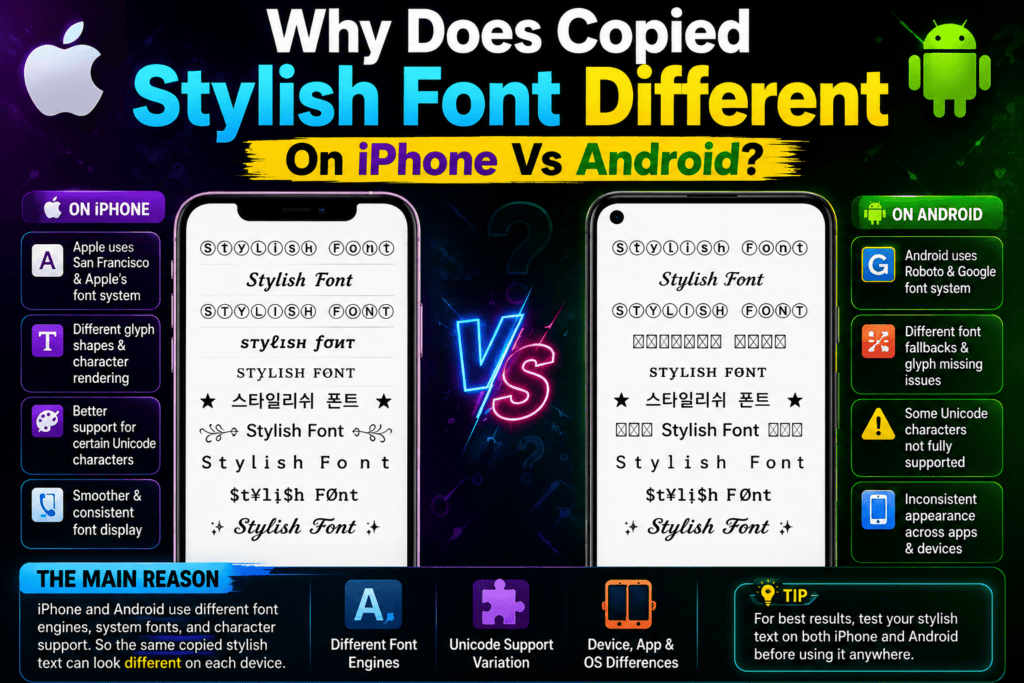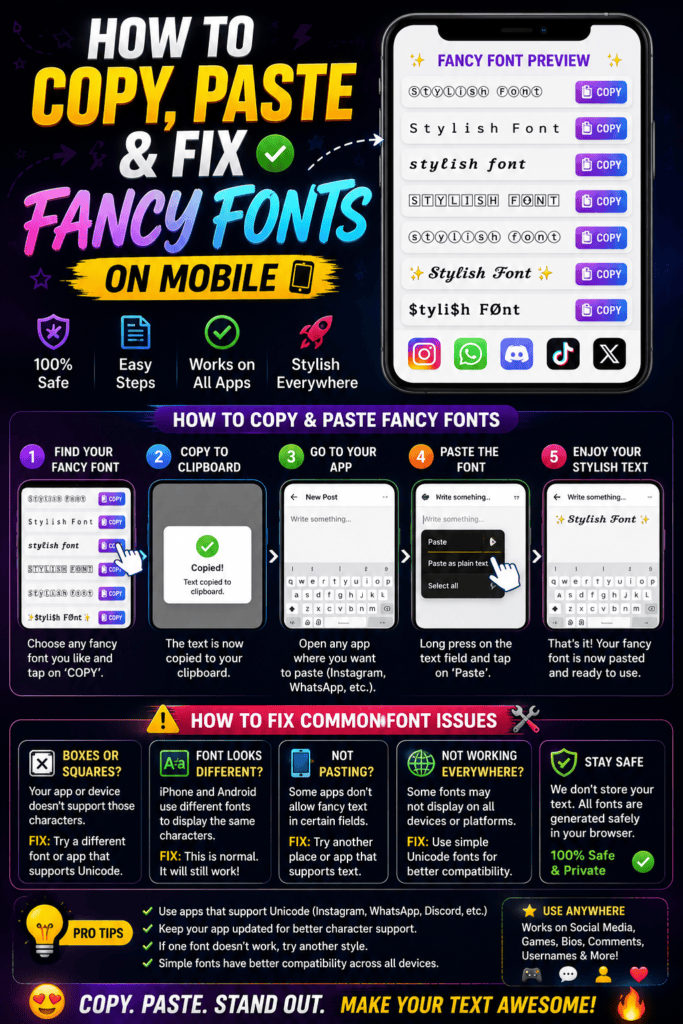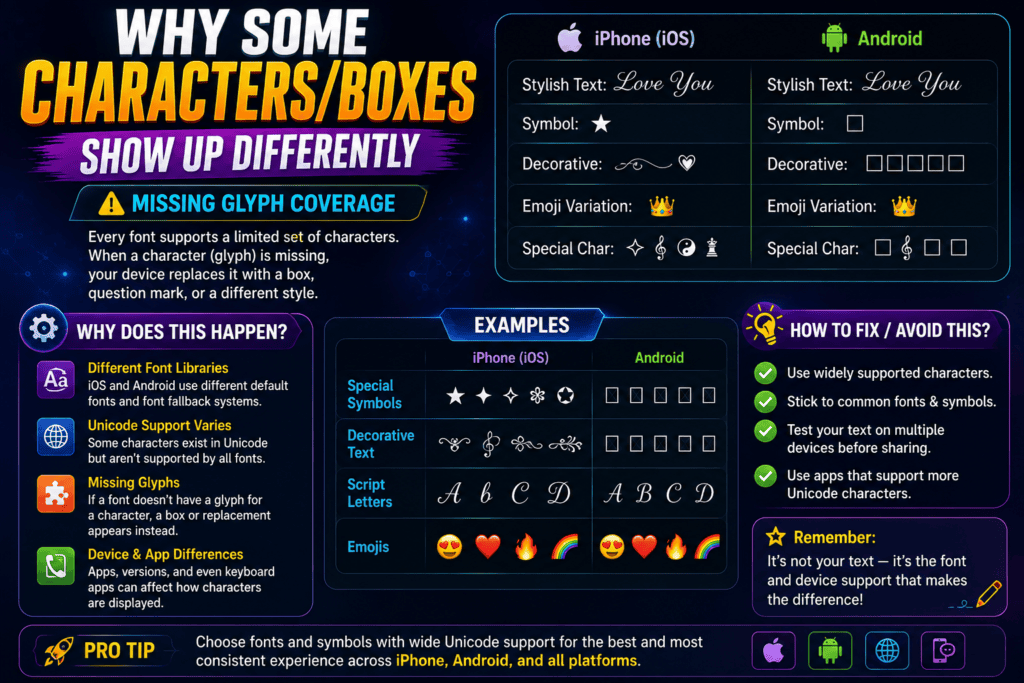
After personally testing styled lettering across iPhone and Android, I found the surprise starts after pasting: each operating system selects its font library, so an identical Unicode string may render differently despite looking stable initially.
In practice, Apple can draw a character with San Francisco, while Google reaches into Noto or a fallback chain. When glyph coverage is missing, unusual symbols can appear as a box, replacement symbol, or shape.
Why Fonts/Text Look Different On iPhone Vs Android (Core Cause)
From my testing, styled characters are not actual typefaces; they are Unicode characters. Each OS uses own fonts, coverage, and glyph shapes, so identical copied text can render visually different across iOS and Android devices.
The sender’s device stores and sends the same code points, but the reader’s phone selects an available font. Missing glyph coverage, app rules, font spacing, and combining marks create boxes, thinner letters, or unexpected substitutions.
Why Some Characters/Boxes Show Up Differently (Missing Glyph Coverage)
When a stylish symbol becomes an empty square, the issue is usually glyph coverage, not the transfer action. I have seen iOS choose a different fallback source, while unsupported symbols become tofu on-screen after posting.
The surprising part is that the sender may see perfection. On another handset, a mid-string symbol can become a block because the local library lacks that shape; the software simply doesn’t know what to draw.
Which Styles/Fonts Are Safe/Consistent Across Both Platforms
From testing display name and bio text on different devices, I’ve found bold, italic, small caps, and monospace safest. Their shapes are broadly covered, appearing nearly identical across major platforms, apps, keyboards, and browsers today.
By contrast, fraktur, double-struck, and obscure decorative styles often diverge when each phone chooses fallback fonts. I reserve them for short headings, keeping names, links, dates, prices, and essential wording in plain characters for clarity.
Custom/Installed Font Rendering Differences (Developer-Side, TTF/OTF Issue)
In testing hybrid apps, I found a bundled ttf or font file can render differently when iOS and Android resolve font-weight, fallback glyphs, and asset paths; the visible difference often starts inside configuration, not copying.
A fix is verifying src, url, assets, font-family, font-style, and Ionic CSS Variables, then testing each selected word on another device; mismatched OTF naming or unsupported characters may trigger a separate font, boxes, or substitution.
Non-English/Multi-Language Character Rendering
Arabic, Urdu, Hindi, and accented scripts may look polished on one device yet uneven on another because each installed typeface supplies different glyph shapes, spacing, and fallback behavior across the receiving app in daily messaging.
From testing bilingual profiles, I find plain text safest for names and contact details, while a restrained style suits a brief status. Always inspect the saved result on both platforms before publishing multilingual captions publicly.
How To Copy, Paste & Fix Fancy Fonts On Mobile
How To Copy And Paste Fonts On iPhone And Android: Quick Steps
On iPhone, I launch Safari, visit a service, type a short phrase into the input box, review results, and pick the selected result. Use Copy, move to the target app, press, hold, and select Paste.
On Android, begin with Chrome, compare available results, select Copy beside the chosen style, then launch your destination app. Press and hold the text field, select Paste, and check spacing before finalizing the main message.
Device-Specific Instructions — iPhone
On iPhone, I start inside Safari, not the destination app: enter text in a font generator, choose style, tap Copy, then open the target field and use the press-and-hold editing menu for insertion cleanly afterward.
Before saving, I paste into Notes first; this catches stacked marks or characters that display incorrectly. My practical habit is previewing the draft caption, keeping essential profile wording plain, and testing visibility on another device.
Device-Specific Instructions — Android
On modern Android, I begin with outcome: if styled text survives saving, the basic process worked. Paste through the clipboard interface, inspect the editing preview, then compare behavior inside the same app before publishing anything.
From my testing, keyboard clipboard history helps when failed pastes occur, yet Android versions vary. Recopy the short profile text, strip unusual symbols, preserve a plain-text copy, and verify visible fields after reopening profile once.
Which Apps Support Fancy Fonts?
Most social apps do not install a new font; they accept different characters that resemble styled lettering. In practice, ordinary letters remain safer, while decorative text depends on each app, field, and the viewer’s device.
Why Will The Fancy Font Not Paste?
When fancy text refuses to paste, confirm the app accepts Unicode, then try a plain field. If it appears elsewhere, the issue affects a different part. Keep an available backup, paste directly, and return afterward.
Why Does Fancy Text Disappear After I Save It?
In my testing, content can appear saved yet disappears because an app rejects unsupported characters. Use a basic style, tap save, and check whether it remains visible before adding more text to the bio field.